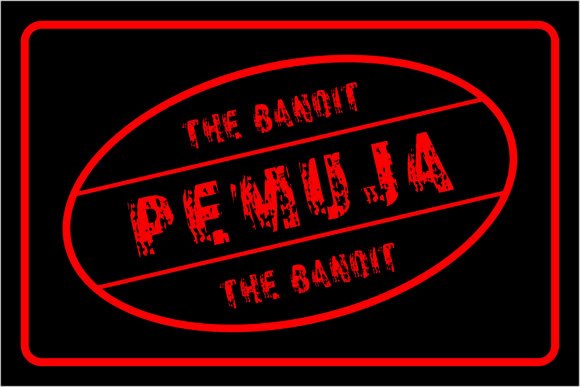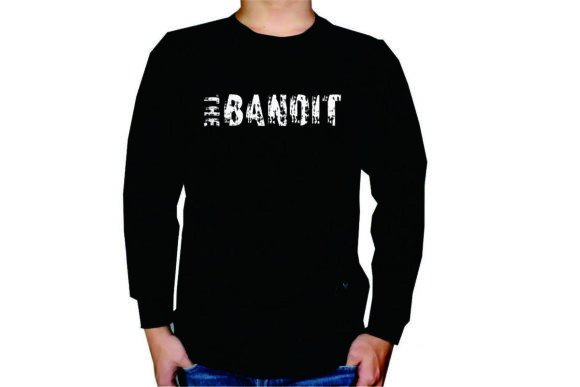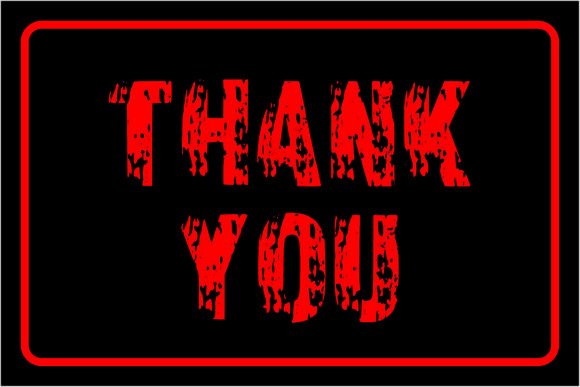
Meet Your New Best Friend: The Bandit Font
You know that moment when you’re working on a design project, and you just can’t seem to find the right font to bring it all together? The perfect combination of style and personality can make all the difference, and that’s where the Bandit Font comes in. This cool, unique, and eye-catching decorative font is designed to add a touch of fun and whimsy to your digital creations.
Whether you’re designing digital clothing, creating graphics for a brand, or just looking for a way to add some personality to your social media posts, the Bandit Font is the perfect choice. Its PUA encoded design makes it easy to access all the delightful glyphs and swashes, giving you endless possibilities for creative expression.
Bandit Font Key Features
- Unique Characteristics: Bandit Font features a unique, hand-drawn design with a mix of modern and vintage elements, making it perfect for creative and artistic projects.
Review of Bandit Font
Overall, I’m impressed with the unique charm of the Bandit Font. ✨ The font’s bold, distressed style adds a touch of ruggedness that’s perfect for creative projects or designs that need a bit of edge.
Here are some of the things I like about the Bandit Font:
- ✨ Highly customizable: The font offers a range of weights and styles, making it easy to find the perfect fit for your design.
- ✨ Unique character set: The font’s distressed style gives it a distinctive look that’s hard to find elsewhere.
- ⚠️ Limited legibility: The font’s distressed style can make it difficult to read, especially in smaller sizes or for people with vision impairments.
Overall, I think the Bandit Font is a great choice for designers who want to add a touch of personality to their projects. While it may not be the most practical choice for every design, it’s definitely worth considering for creative or bold projects.
Getting the Most Out of Bandit Font
To get the most out of the Bandit font, consider the following tips:
– Use the font for bold, statement-making headlines.
– Pair the font with a clean, sans-serif font for body text.
– Experiment with font sizes and colors to create visual interest.
The Bandit font is commonly used for:
– Marketing materials (brochures, flyers, etc.)
– Digital signage.